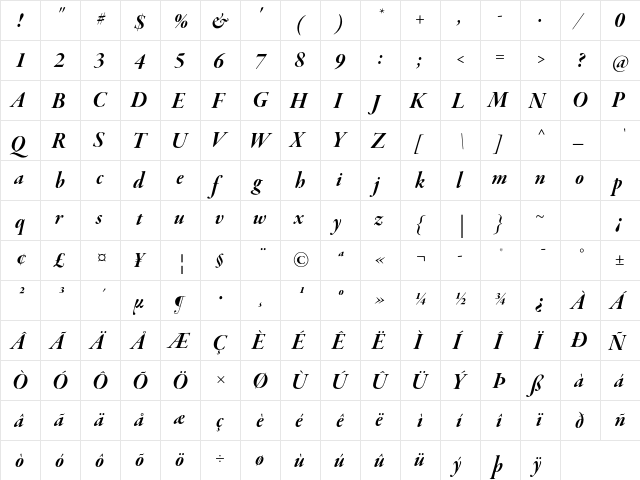
Garamond Premier Pro Bold Italic Display Font Preview
| Designer | Robert Slimbach |
Design Context for Garamond Premier Pro Typeface
Garamond Premier Pro is built around its visual character rather than neutral utility — its distinctive forms are designed to make an impression at display sizes. The dynamic lean of this cut emphasises speed and emphasis in any layout. The heavy weight commands attention and anchors typographic hierarchies.
Font Pairing: Pair with a clean neutral sans-serif for body copy to let Garamond Premier Pro's character lead without overwhelming the composition.
Pro Tip: Use Garamond Premier Pro exclusively at display sizes — it was designed to be seen, not read at length. Let a neutral companion handle body copy.